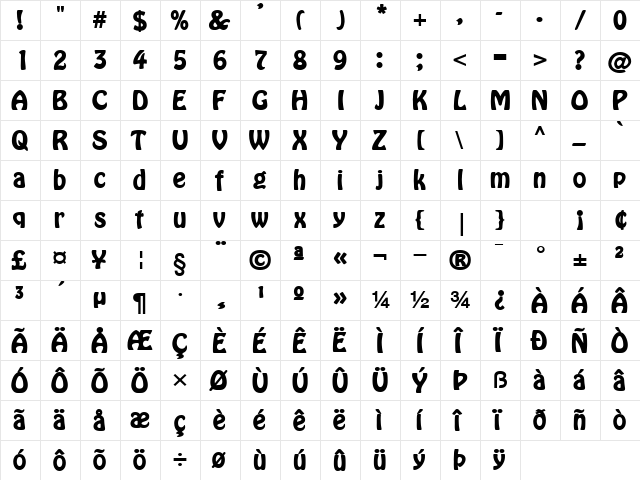
Bobo Bold
Design Context for Bobo Typeface
Bobo is a composed and adaptable typeface that performs quietly and consistently across a wide range of design contexts. The heavy weight commands attention and anchors typographic hierarchies.
Pro Tip: Use Bobo in both headline and body roles to test its range before committing to a single application.